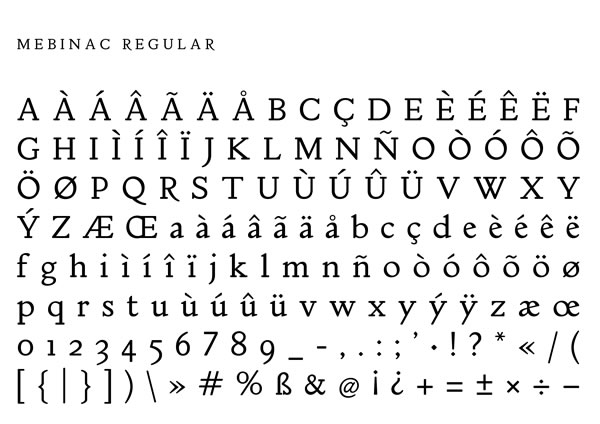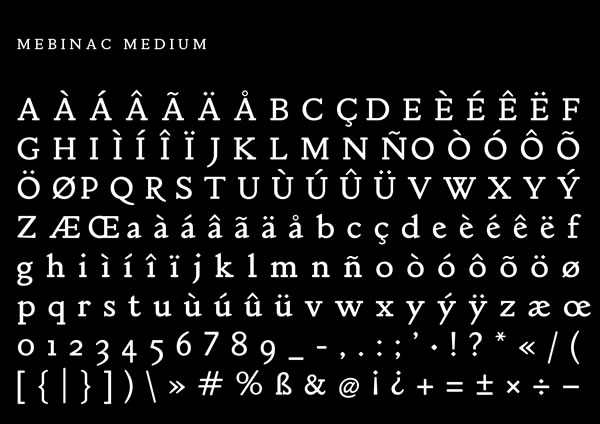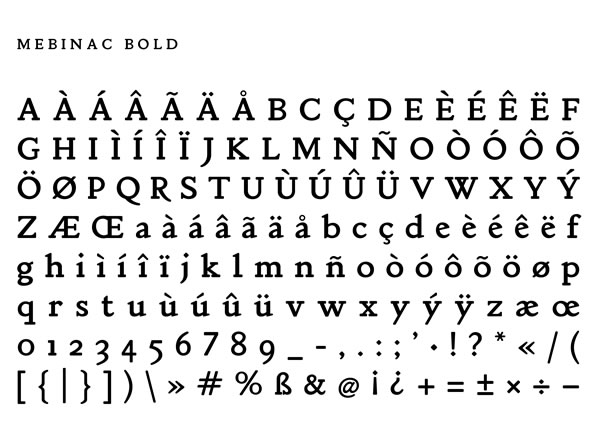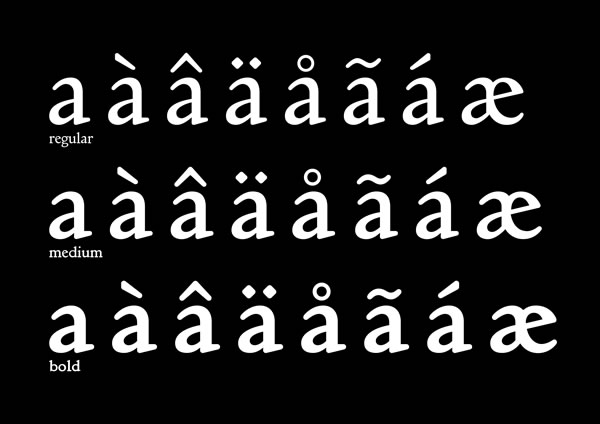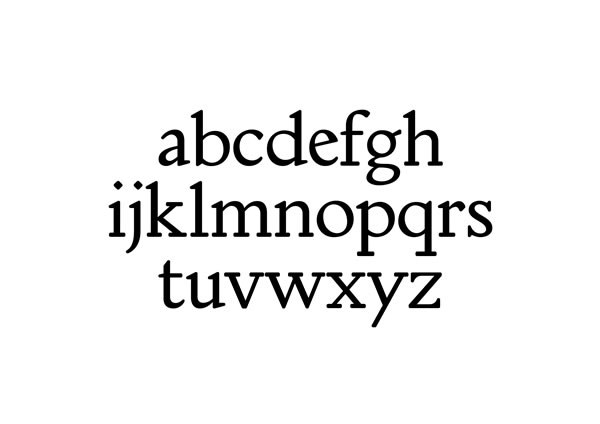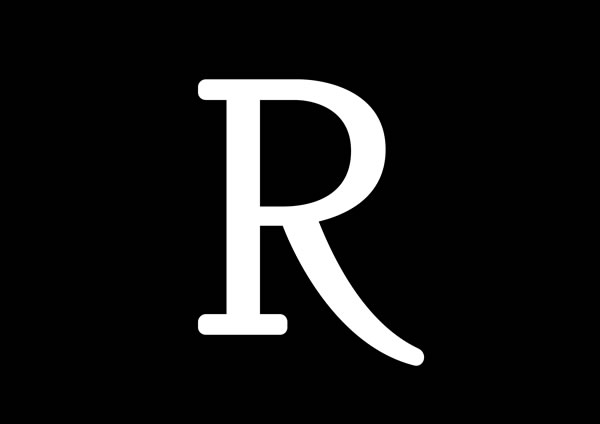
Introduction to Mebinac Bold Two Font
Imagine you’re working on a creative project and the perfect font has been eluding you. You’ve searched high and low for that one font that will elevate your design and make it truly stand out. For designers, finding the right font can be a game-changer. It’s what takes a good design and turns it into a great one.
That’s where the Mebinac Bold Two Font comes in – a high-quality serif font designed by Alan Hayward. This free download is a valuable resource for designers looking to add a touch of sophistication to their projects. With its clean lines and elegant feel, Mebinac Bold Two Font is perfect for creating a lasting impression. Whether you’re working on a magazine layout or a company brochure, this font is sure to make a statement.
Key Features of Mebinac Bold Two Font
- Part of the Mebinac Bold Two Font family, offering a comprehensive set of characters and glyphs for maximum flexibility.
- Designed with precision and attention to detail, ensuring a crisp and clear display on any device.
Honest Review: Mebinac Bold Two Font
I recently had the chance to try out the Mebinac Bold Two Font for a creative project, and I’m here to give you my honest take on it. As a designer, I appreciate high-quality design resources that can elevate my work. Mebinac Bold Two Font definitely delivers.
What works well: ✨ The font is incredibly versatile, with a wide range of styles and weights that can be used to create a variety of visual effects. It’s also very easy to read, making it perfect for body text in a design. Plus, it’s a free download, which is always a bonus!
What could be improved: ⚠️ One thing I noticed was that the font doesn’t have a transparent background option, which can make it a bit tricky to use in certain design situations. Additionally, some of the styles can feel a bit inconsistent, which might be a turn-off for designers who value precision.
Overall, I’m really impressed with the Mebinac Bold Two Font. It’s a great addition to any design arsenal, and I’d definitely recommend it to fellow designers looking for a high-quality font to add some flair to their creative project.
- Perfect for body text and titles
- Wide range of styles and weights
- Can be used in a variety of design situations
Tips for Getting the Most Out of Mebinac Bold Two Font
Use Mebinac Bold Two Font for headings and titles to add a touch of elegance to your design. Experiment with different font sizes and colors to create a visually appealing design.
Mebinac Bold Two Font is perfect for creative projects such as brochures, flyers, and business cards. It’s also great for adding a touch of sophistication to your website or social media graphics.
Yes, the Mebinac Bold Two Font is a highly customizable design resource that can be easily modified to suit your specific design needs. With its transparent background and high-quality design, you can use the font as a starting point for creating unique and creative typography for your project. Additionally, the font’s OpenType format allows for advanced typographic features, such as ligatures and stylistic sets, which can be used to add an extra layer of depth and sophistication to your design.